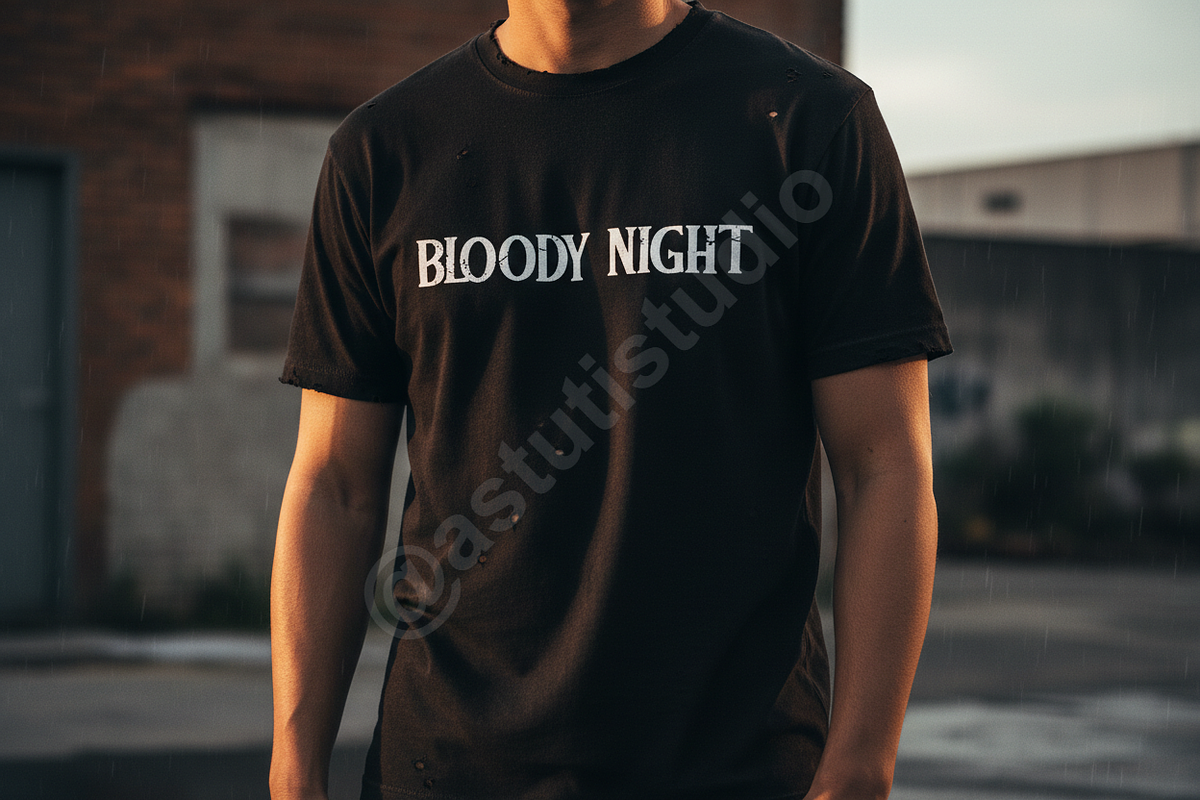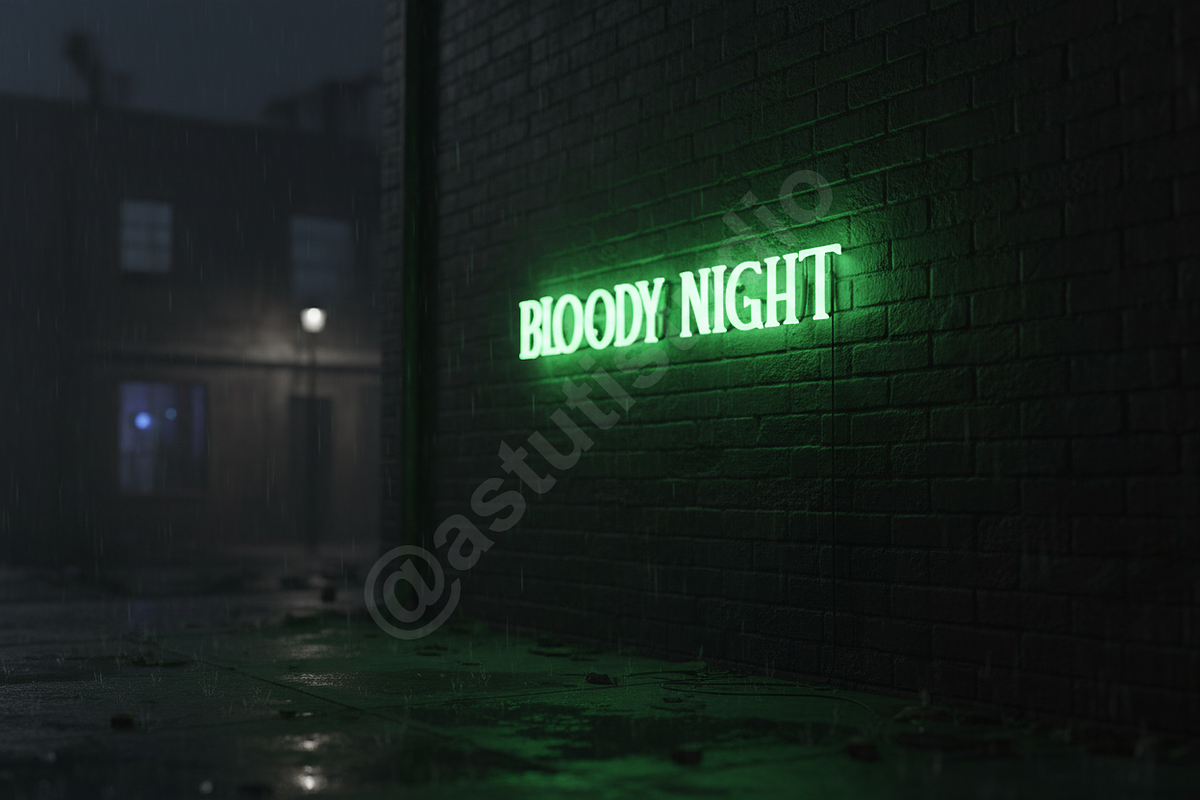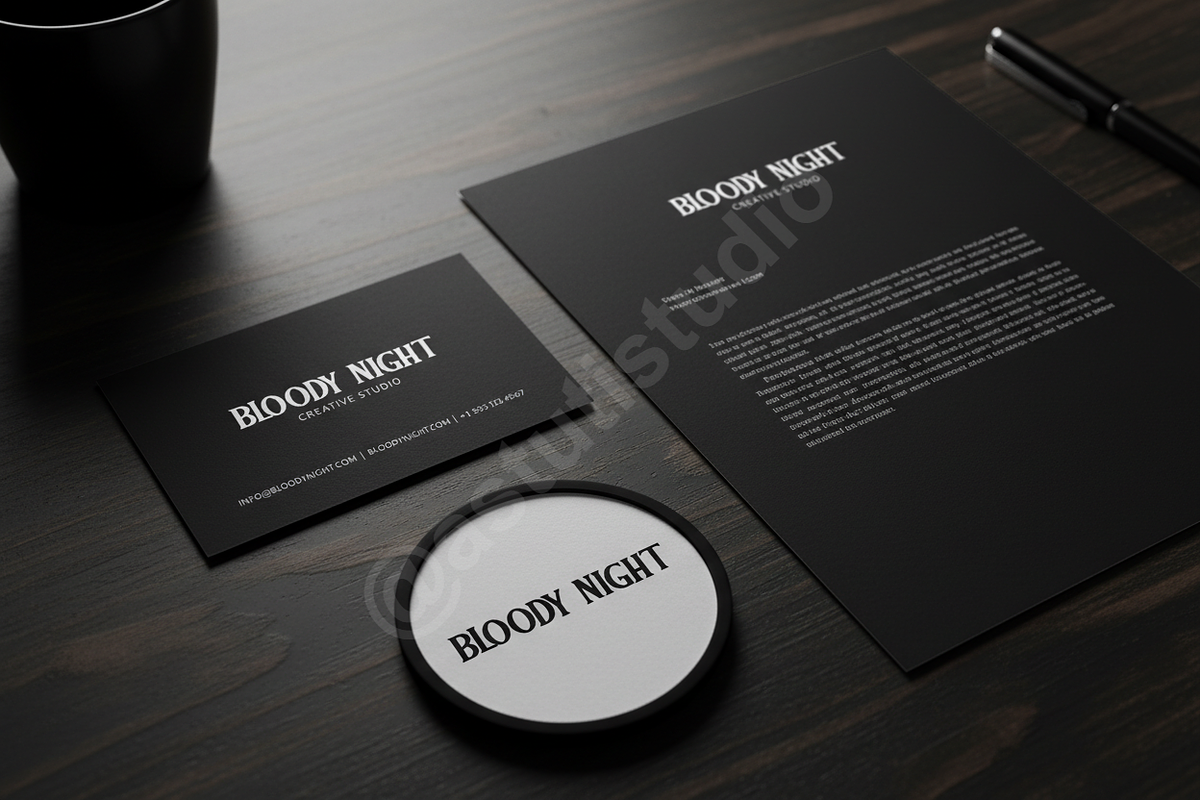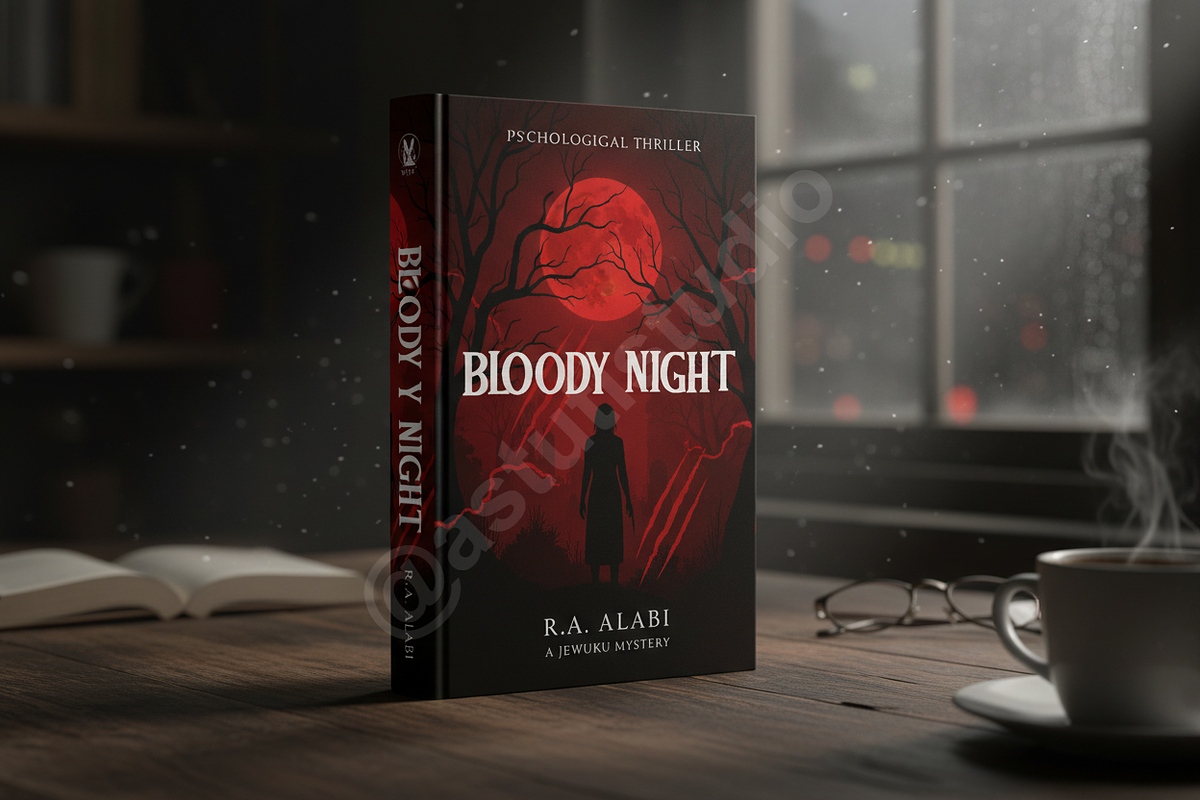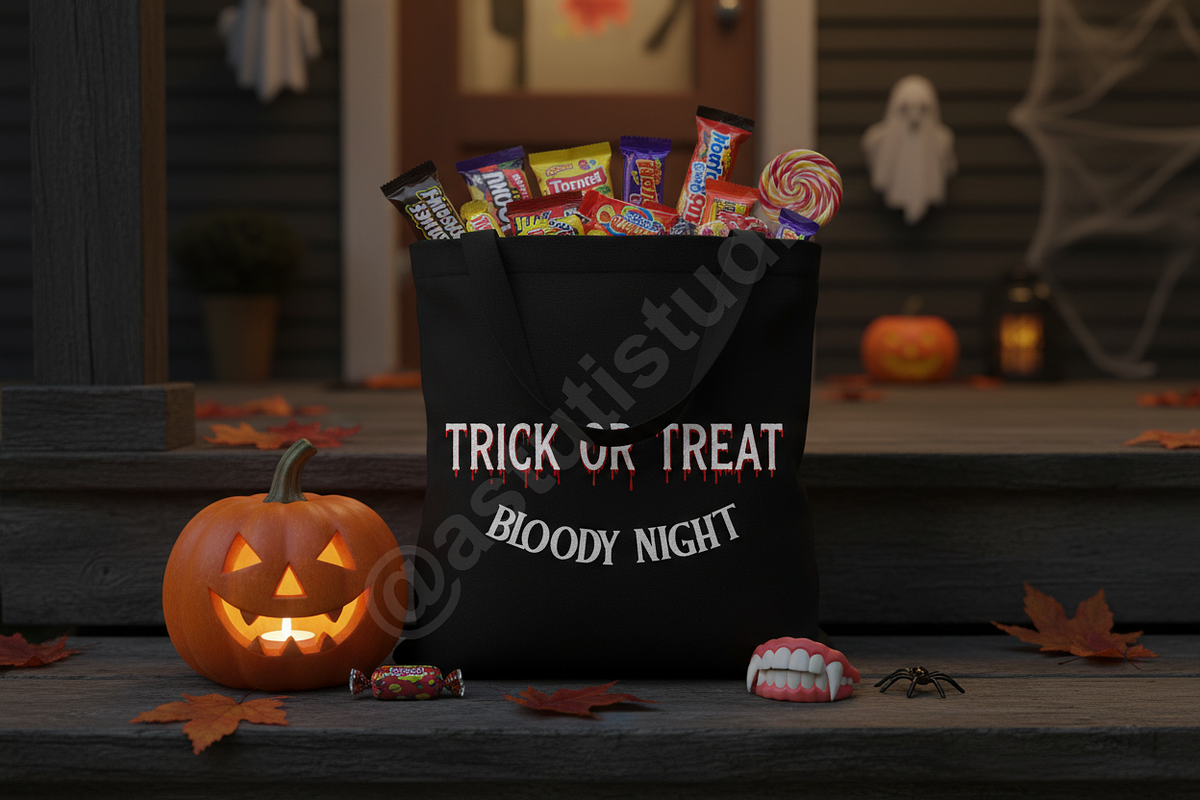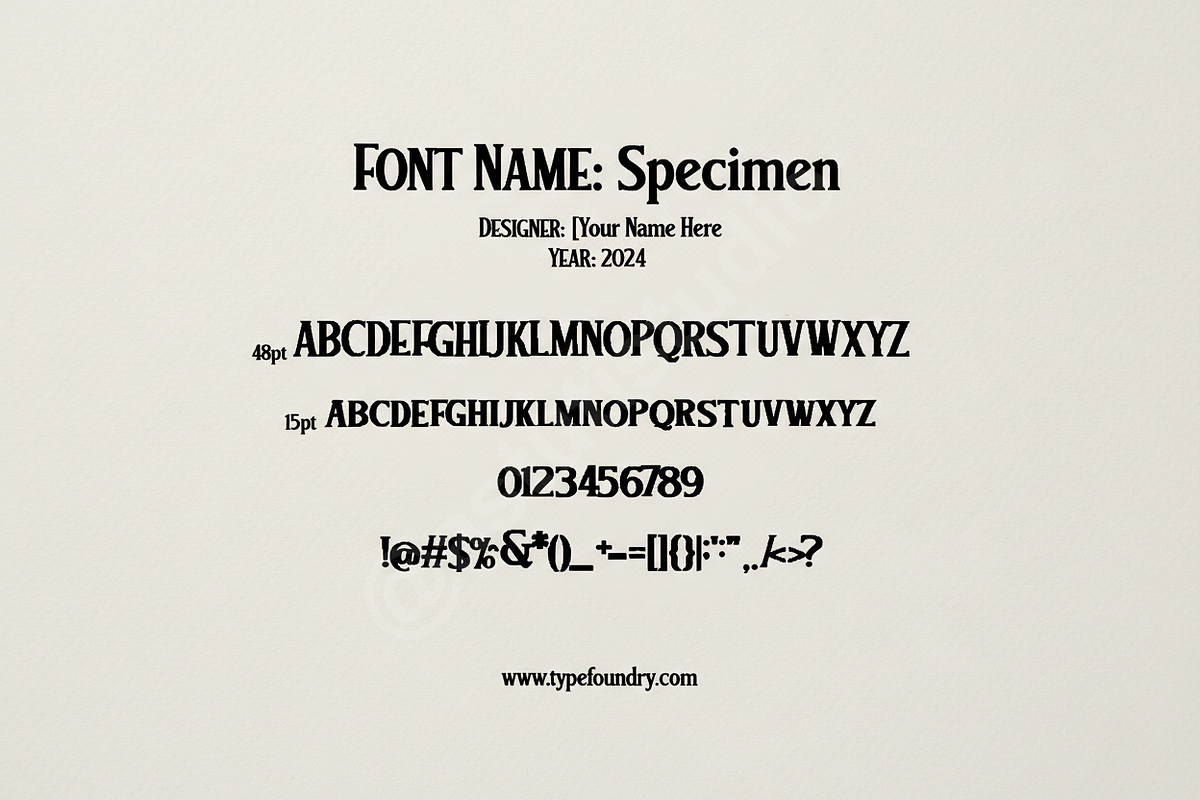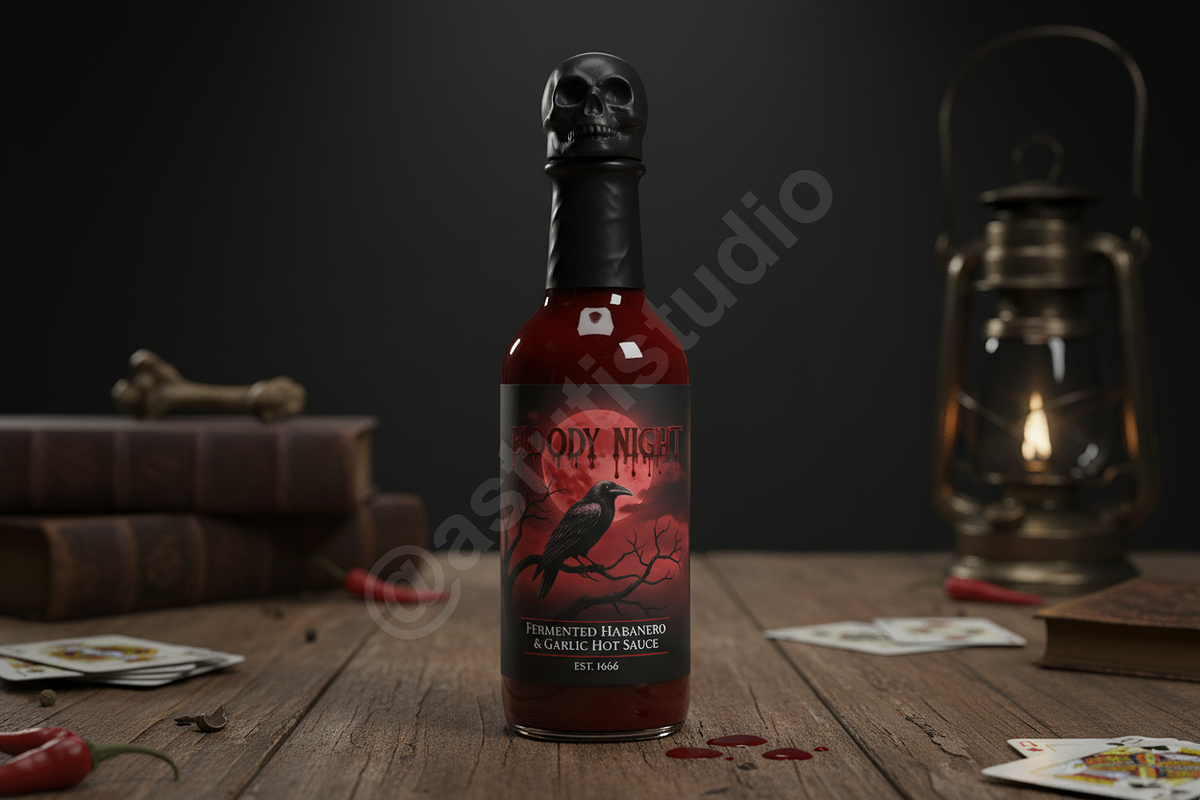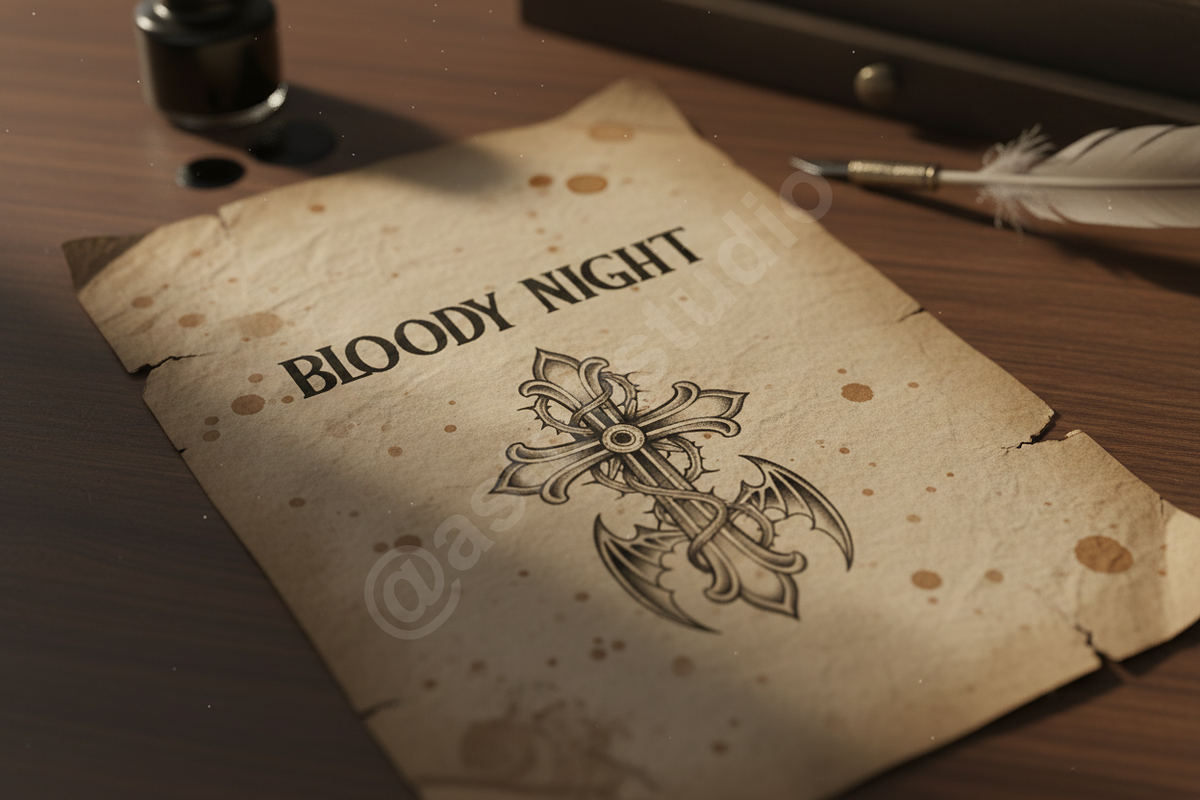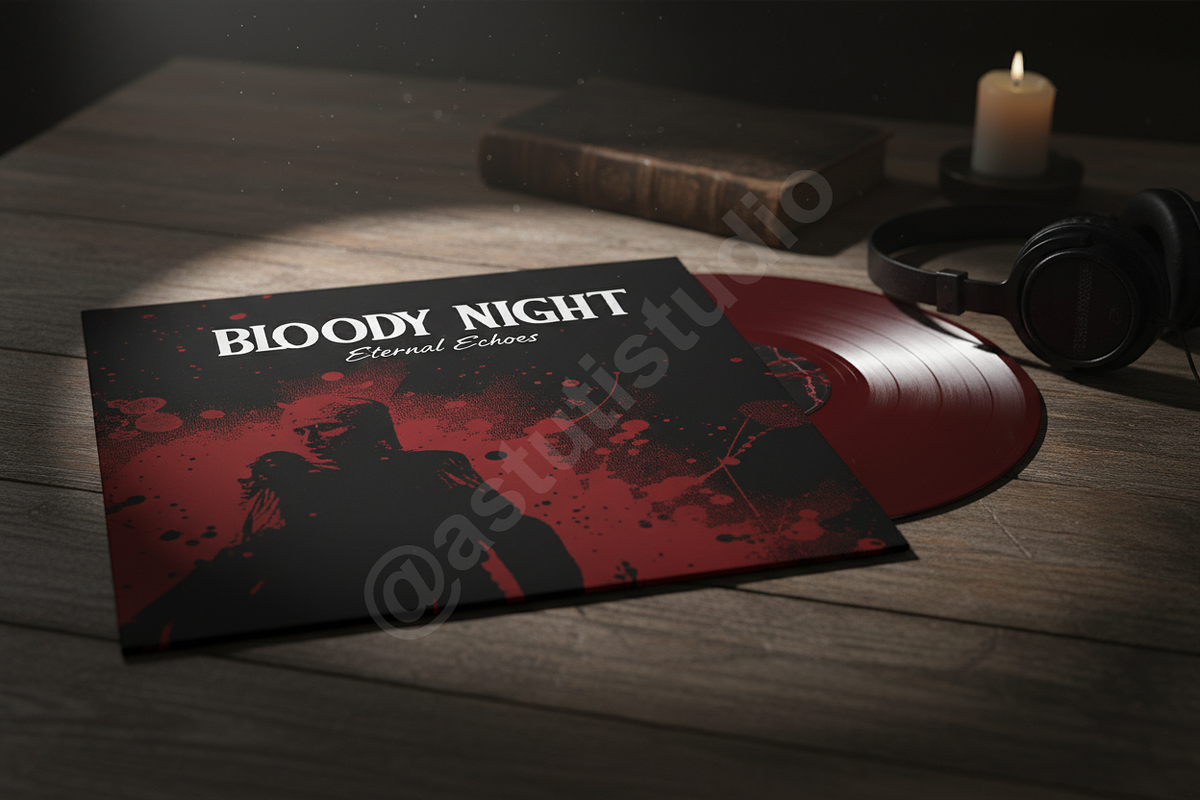
Jewuku | Modern Luxury Editorial Ser
INTRODUCING JEWUKU
Jewuku is a premium serif typeface designed for those who seek sophistication and timeless elegance. Crafted with a focus on high-end aesthetics, this font balances modern minimalism with classic proportions, making it an essential tool for high-fashion branding, editorial layouts, and luxury social media content.
Whether you are designing a boutique logo, a chic magazine spread, or elevated digital marketing assets, Jewuku provides a clean and polished look that commands attention. Its refined silhouette ensures legibility while maintaining a high-fashion, studio-quality feel.
- Sophisticated and timeless serif design
- Elegant ligatures and alternative characters
- Comprehensive multilingual support
- Precise kerning for a professional finish
- Versatile for both print and digital media